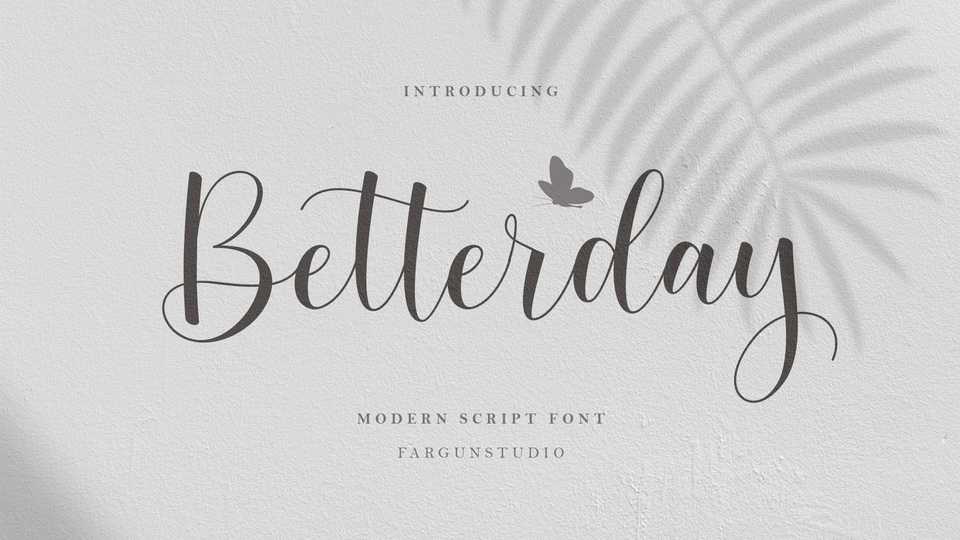
Download Betterday font, a gorgeous script typeface that updates classic calligraphy with a sweet twist. Bettrday is perfect for wedding design, social media, logos, branding, merchandise and more.
Designer: Fargun Studio